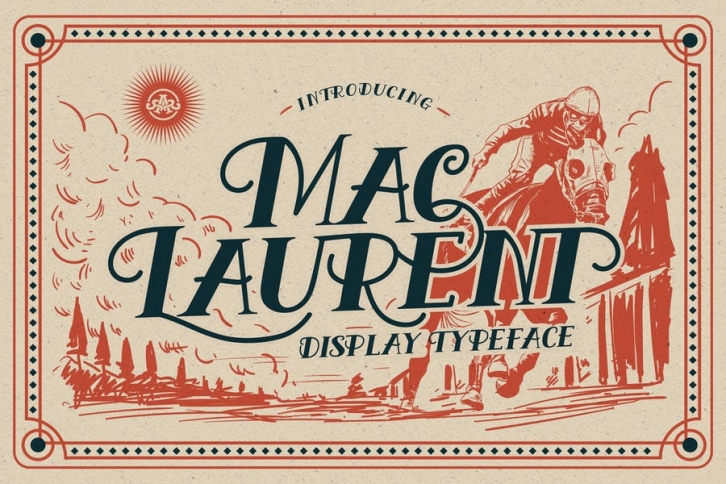
Introducing MacLaurent well crafted typeface inspired by vintage typography. The typeface Ideal for : Logo, quotes, invitations, signage, poster, greeting cards, packaging, headers, printed quotes, cover album, etc. Mac Laurent came with open type features such stylistic alternates, stylistic sets, & ligatures.
For the best layout try mixing up both upper and lowercase characters.